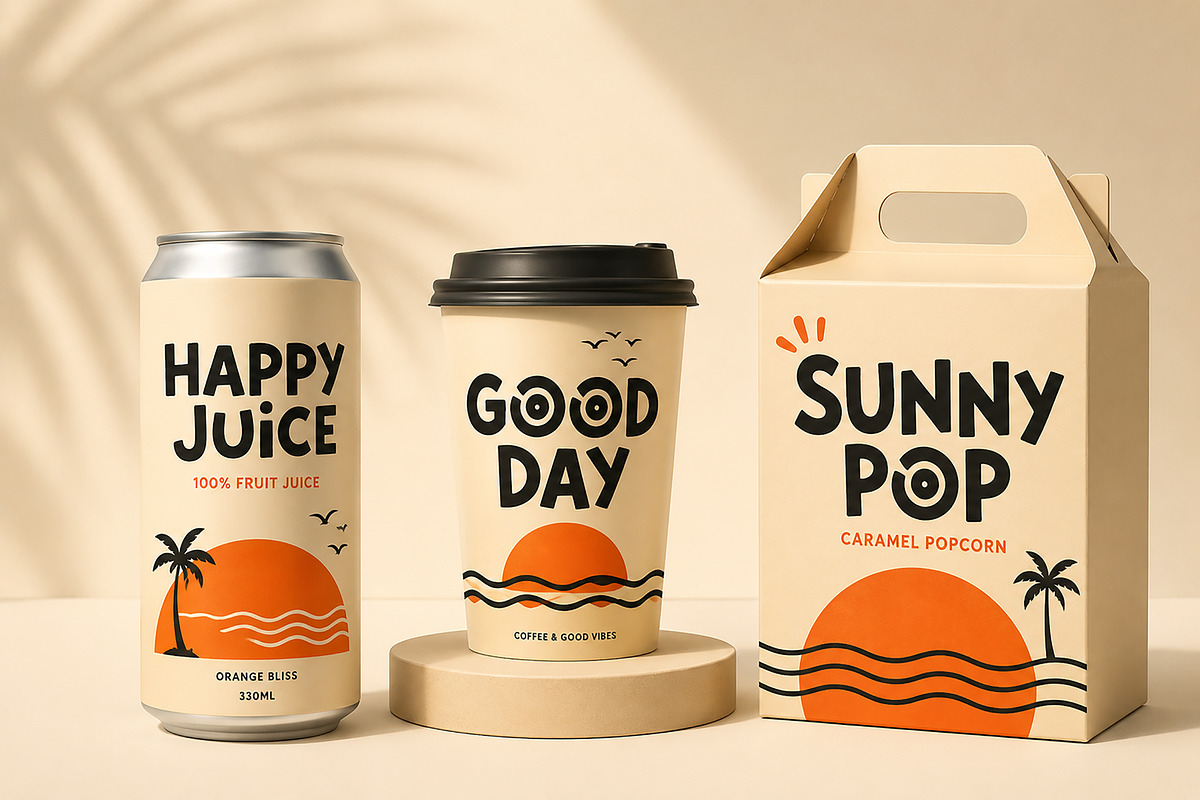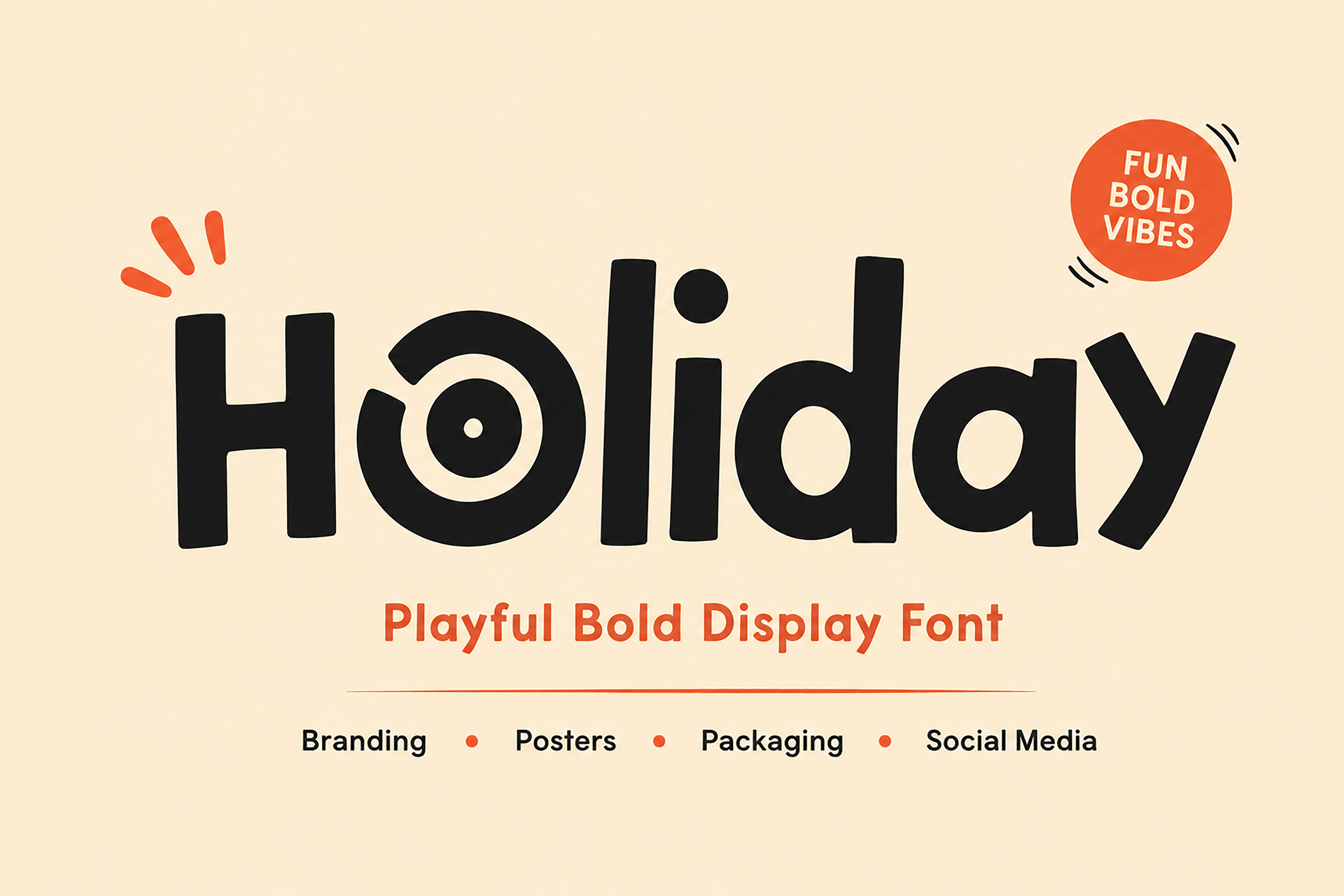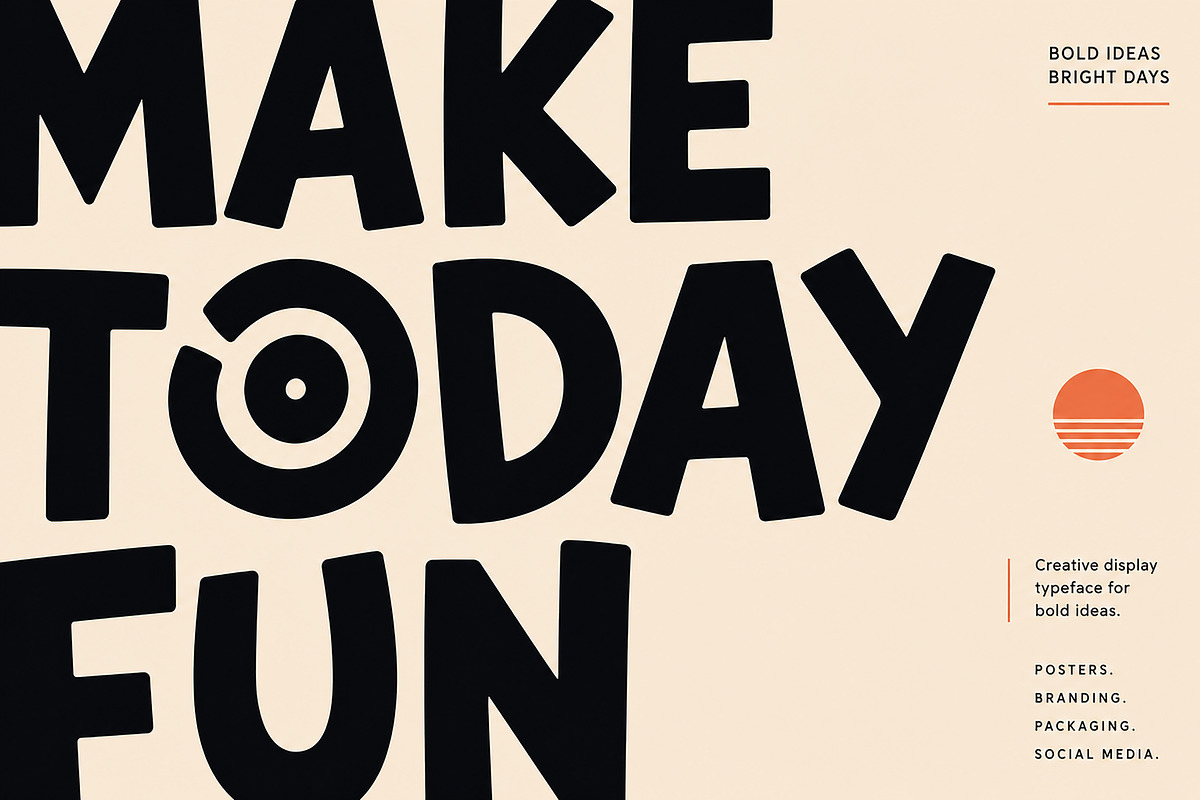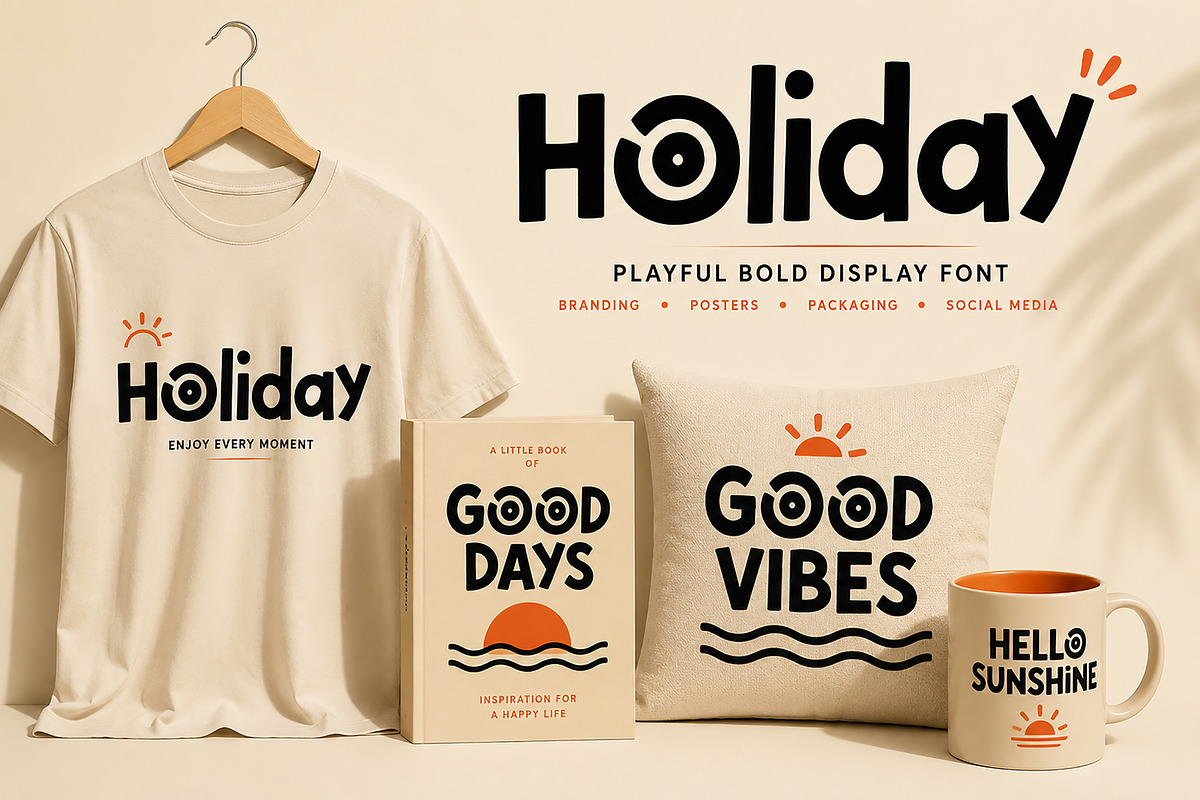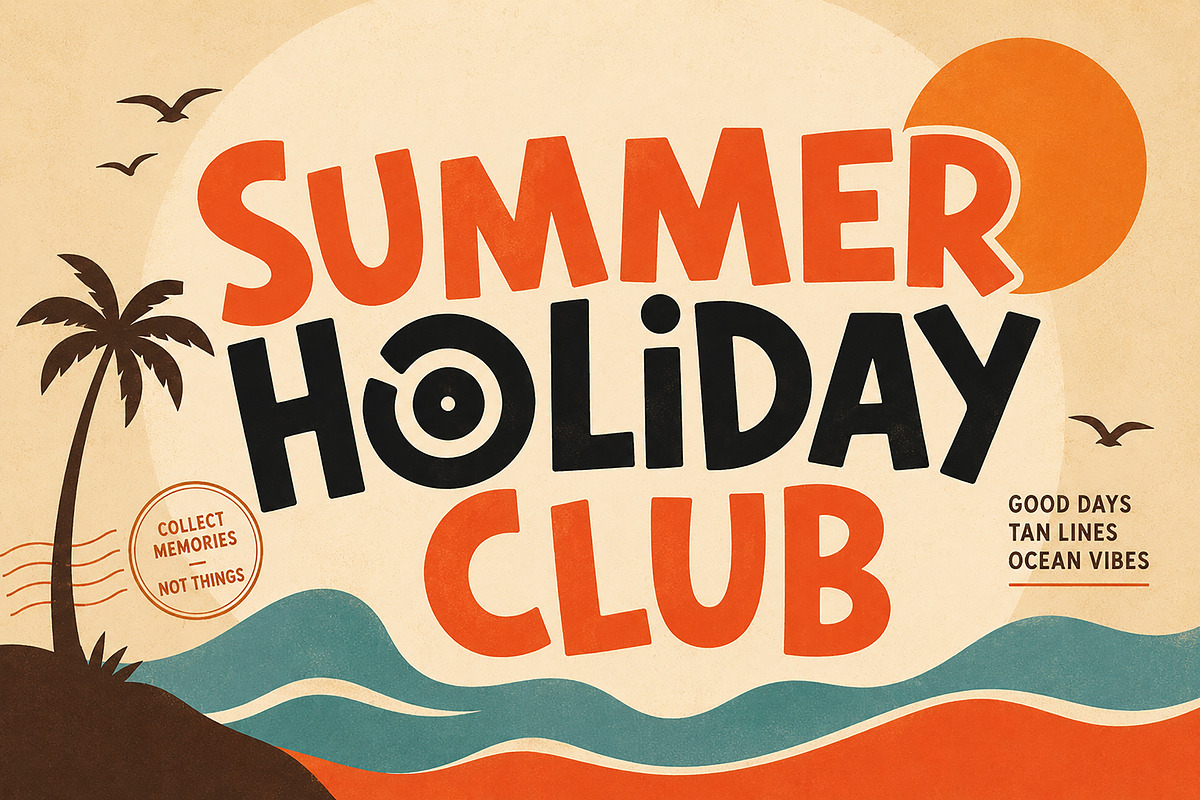
Holiday – Playful Bold Display Font
Holiday is a playful, bold display font created to bring a fun, cheerful, and distinctive personality to your designs. Featuring chunky letterforms, quirky details, and an eye-catching handcrafted character, Holiday is perfect for designs that need to feel friendly, energetic, and memorable.
Its bold visual style makes it especially effective for headlines and branding, while the unique letter shapes help your typography stand out instantly. Whether you're creating a playful brand identity, eye-catching packaging, a retro-inspired poster, or fun merchandise, Holiday gives your project a fresh and expressive look.
Holiday works beautifully across both digital and print projects and is a great choice for designers, creators, and small businesses looking for a bold display typeface with plenty of personality.
Branding & Logo Design
Posters & Headlines
T-Shirts & Apparel
Advertising & Promotions
Book & Magazine Covers
Mugs, Tote Bags & Merchandise
Labels & Stickers
Invitations & Greeting Cards
Creative Editorial Designs
Retro & Playful Designs
Why You’ll Love Holiday
Holiday combines bold typography with a playful, handcrafted personality. Its chunky forms and distinctive details make it ideal for creating strong visual identities without losing a friendly and approachable feel.
From packaging and posters to apparel and social media, Holiday is designed to make your words the center of attention.